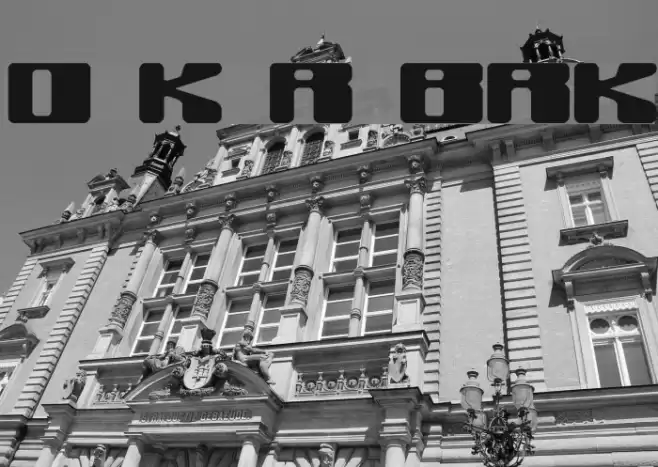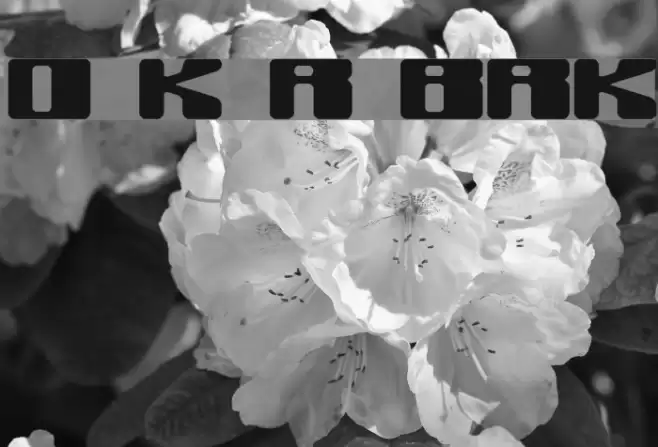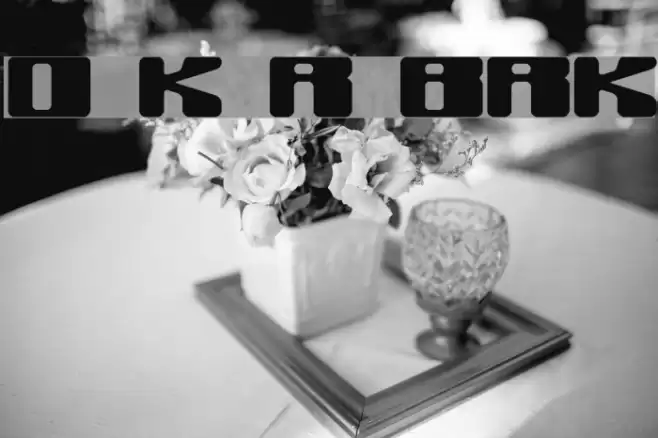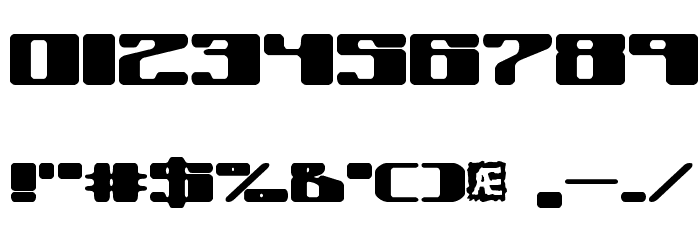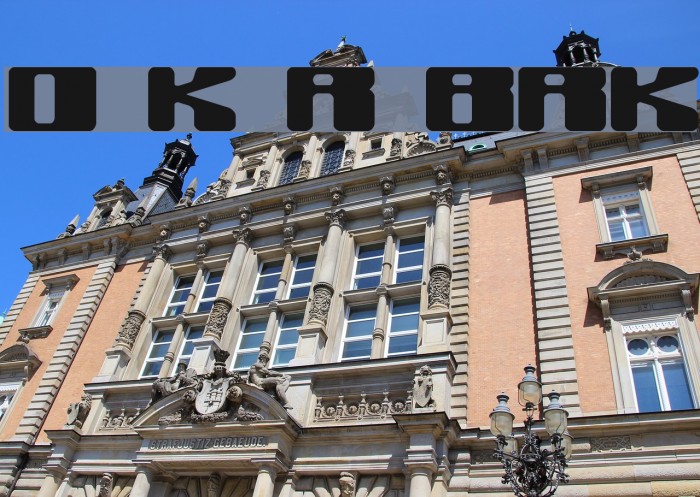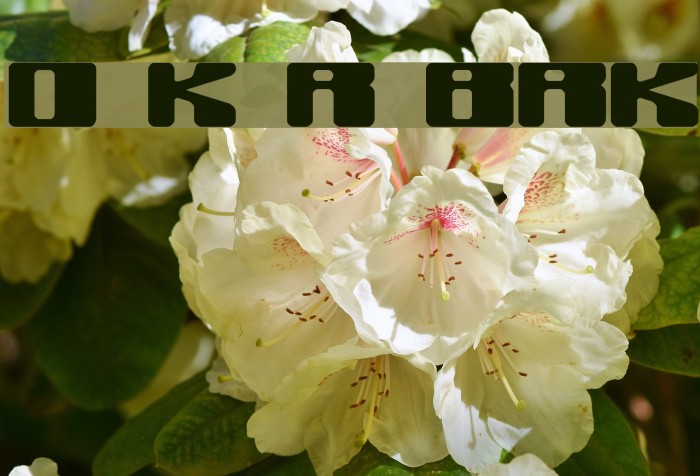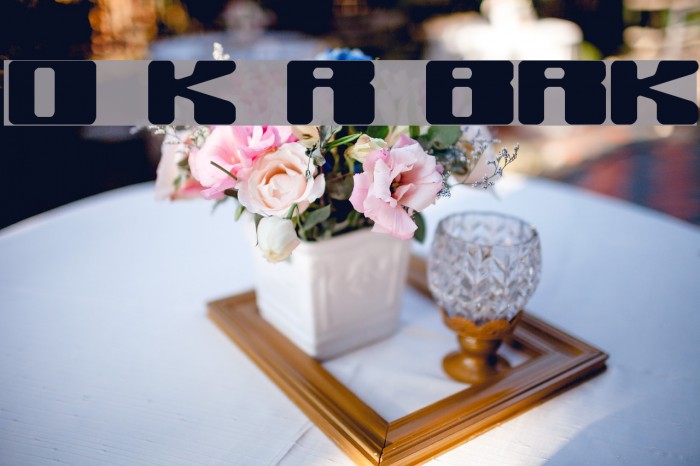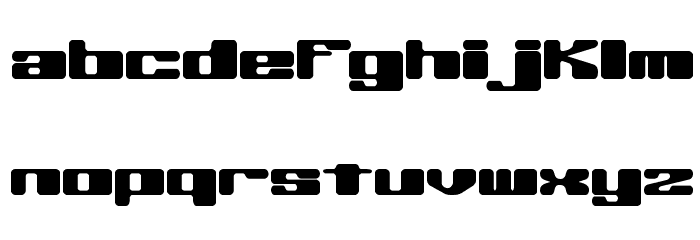
Off Kilter R BRK Font
Off Kilter R BRK Description
This font features a bold, geometric design with a distinctively modern and playful aesthetic. The characters are constructed with thick, uniform strokes and rounded edges, creating a sense of solidity and approachability. The uppercase and lowercase letters maintain a consistent style, with slight variations in the lowercase forms to enhance readability. The numerals are equally bold and maintain the geometric theme, ensuring they stand out prominently. Special characters are designed to match the overall style, providing a cohesive look across all glyphs. The font's unique style makes it suitable for creative and eye-catching designs.
A bold, geometric font with a modern and playful style from Decorative fonts.
- Proposed Projects: Ideal for posters, logos, branding, and any design requiring a bold, modern touch.